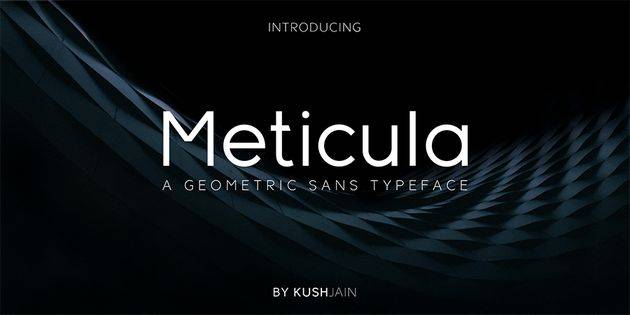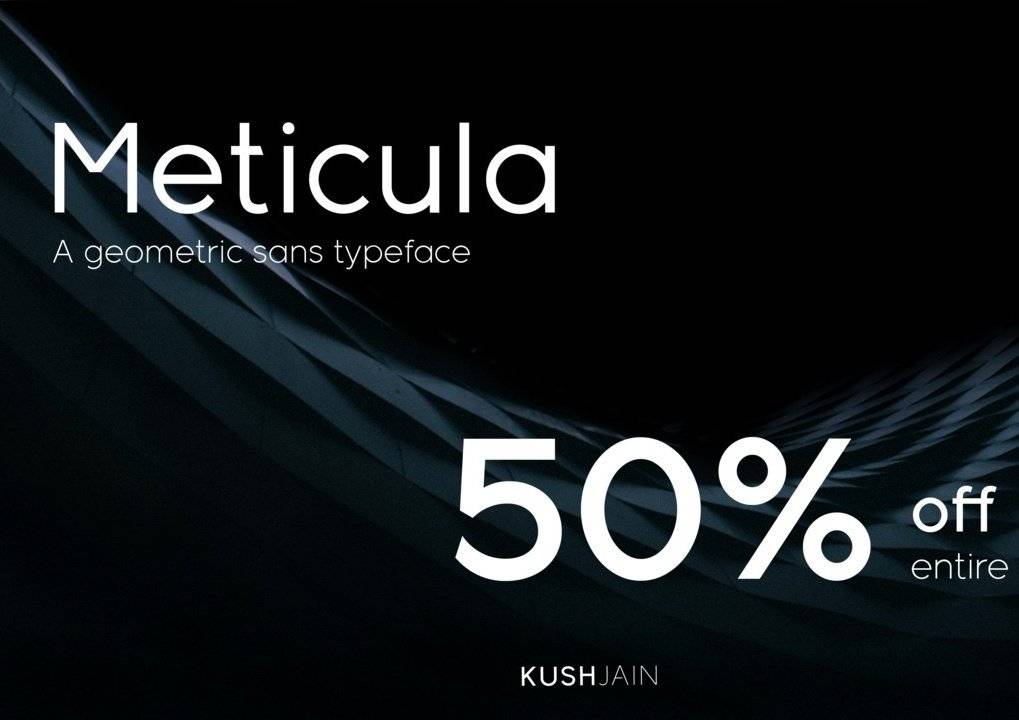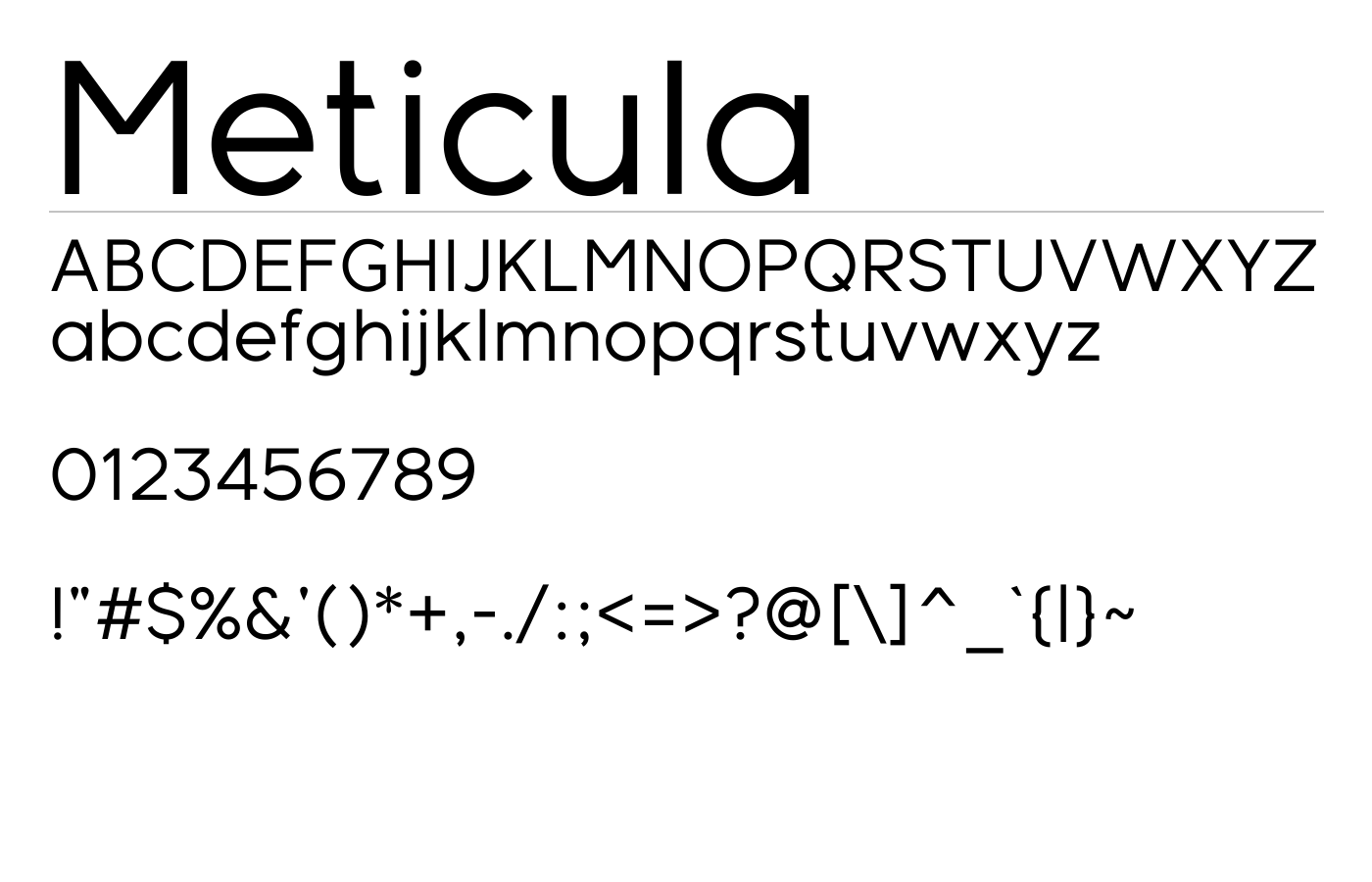
Meticula Sans Demo is a clean, modern sans serif font with a balanced, regular weight and a neutral, geometric feel. Its clear letterforms and moderate x-height make it highly readable, perfect for sleek branding, editorial design, and digital interfaces where simplicity and professionalism are key. This versatile typeface works well in both headlines and body text, offering a contemporary style that feels approachable yet precise.
Meticula Sans Demo
About Meticula Sans Demo